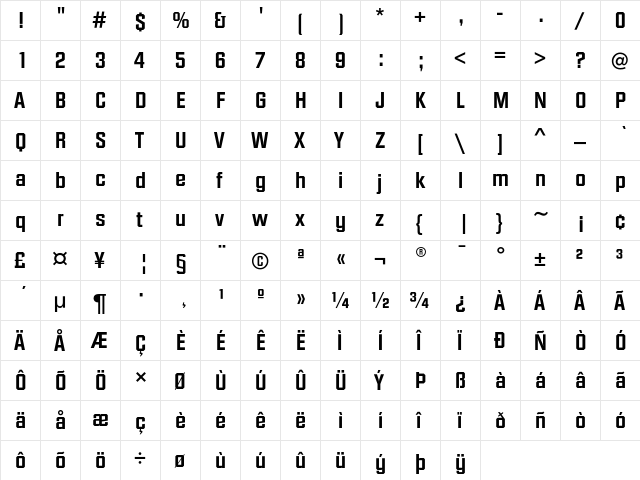
DiamanteEF DemiBold
Design Context for DiamanteEF Typeface
DiamanteEF is a composed and adaptable typeface that performs quietly and consistently across a wide range of design contexts. Its bold stroke weight gives it real presence on the page.